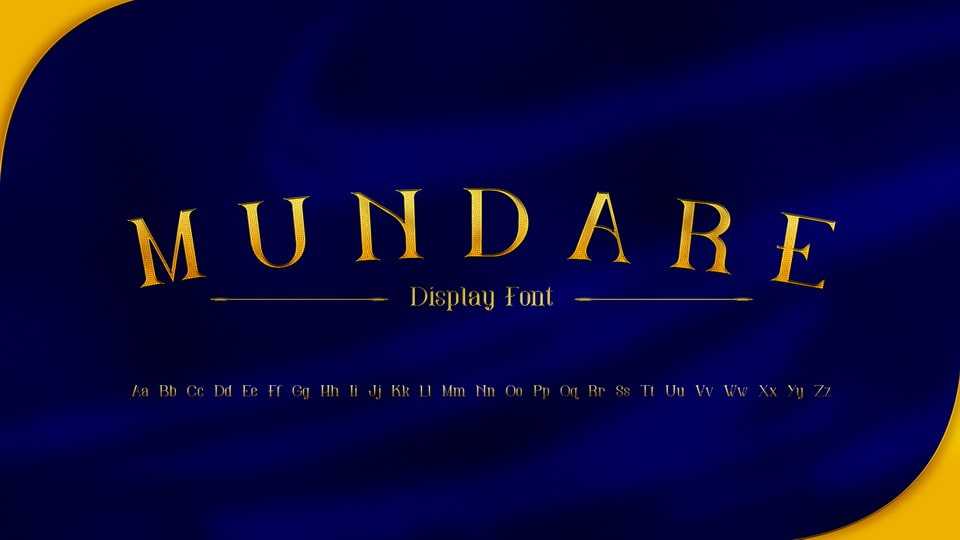
Download Mundare is a hand crafted type project made to work as a display font with a variety of styles and uses. It’s intention to cleanse your project with a unique serif style font that can be used across all emotions the audience is made to feel.
Designer: Ian Langley